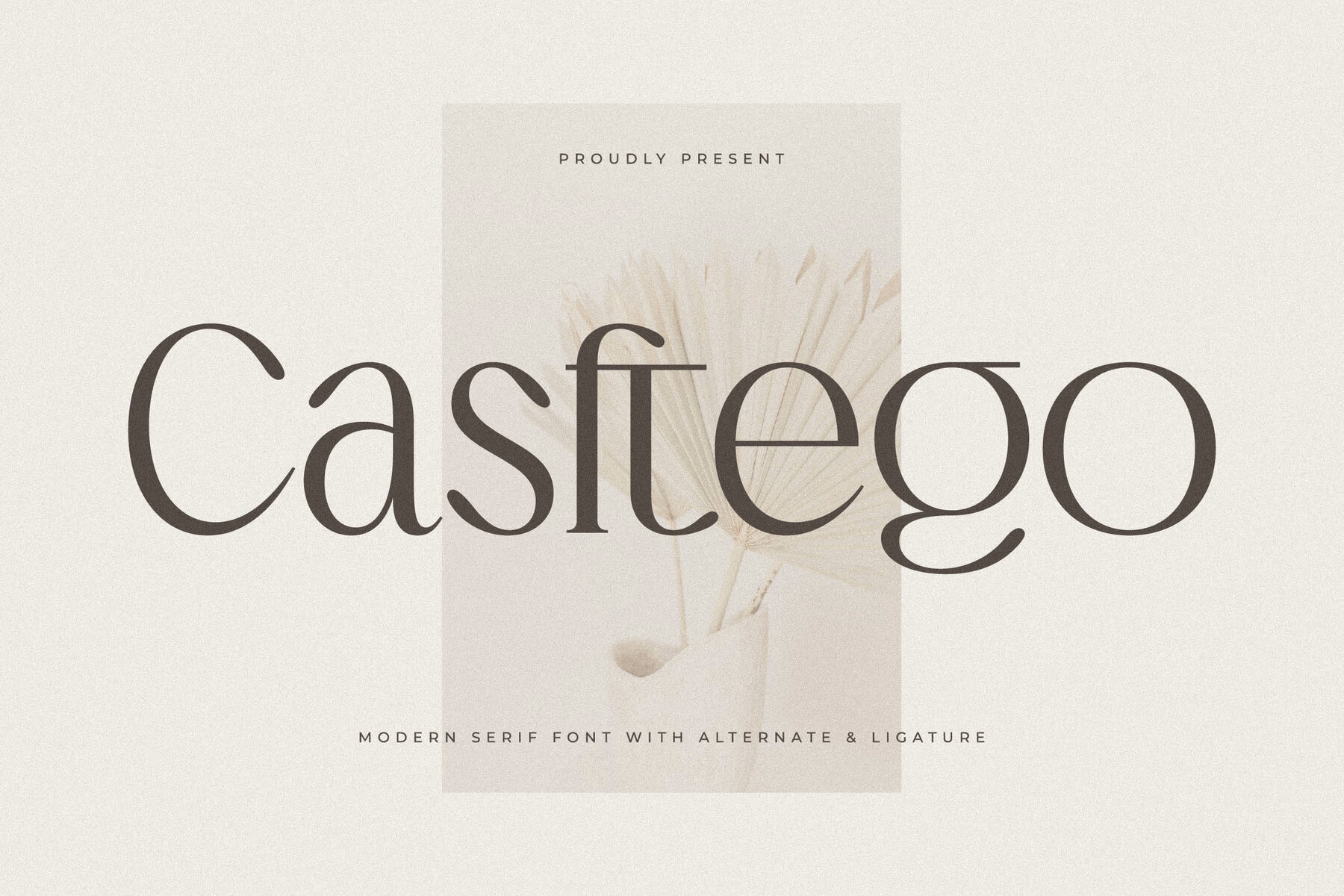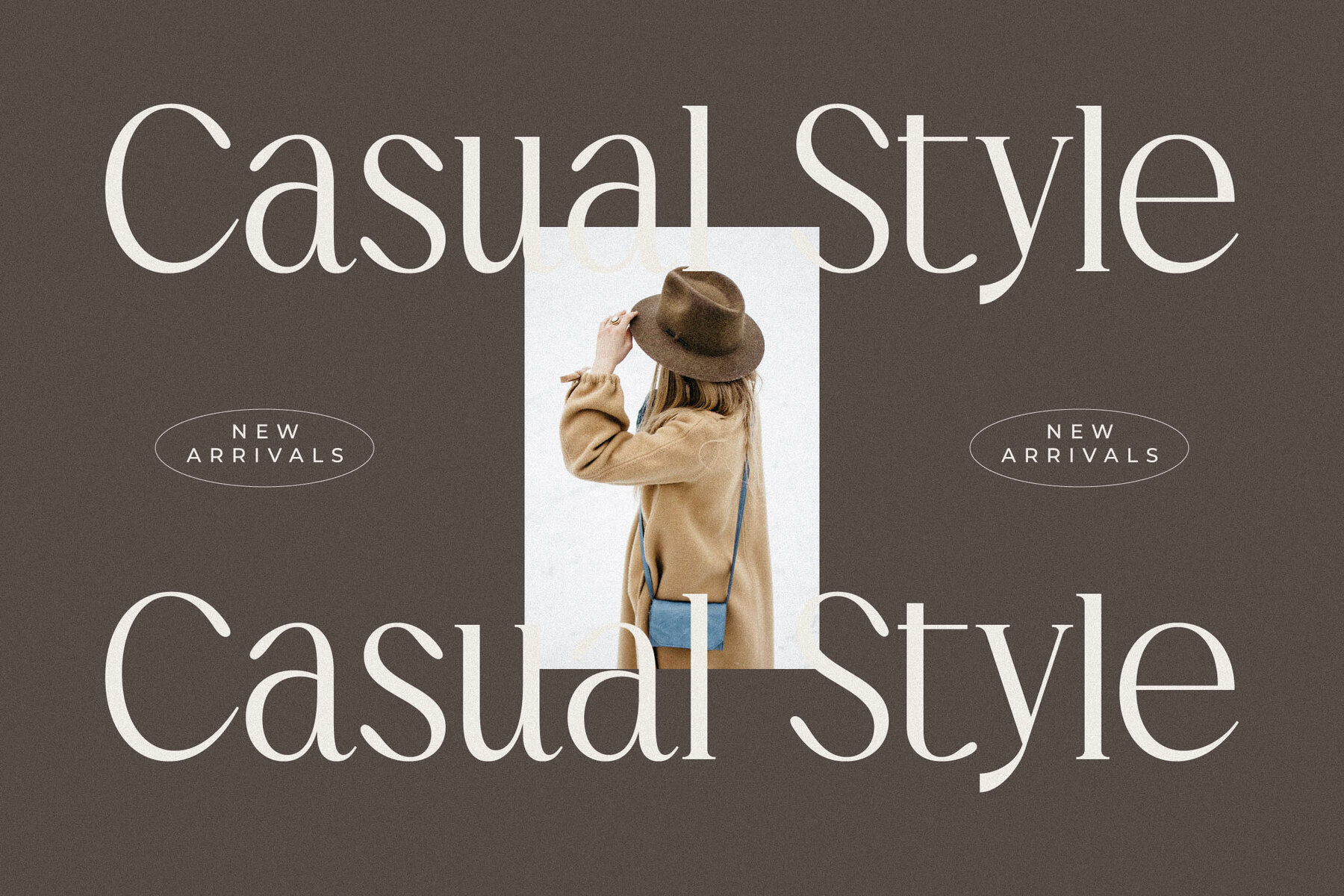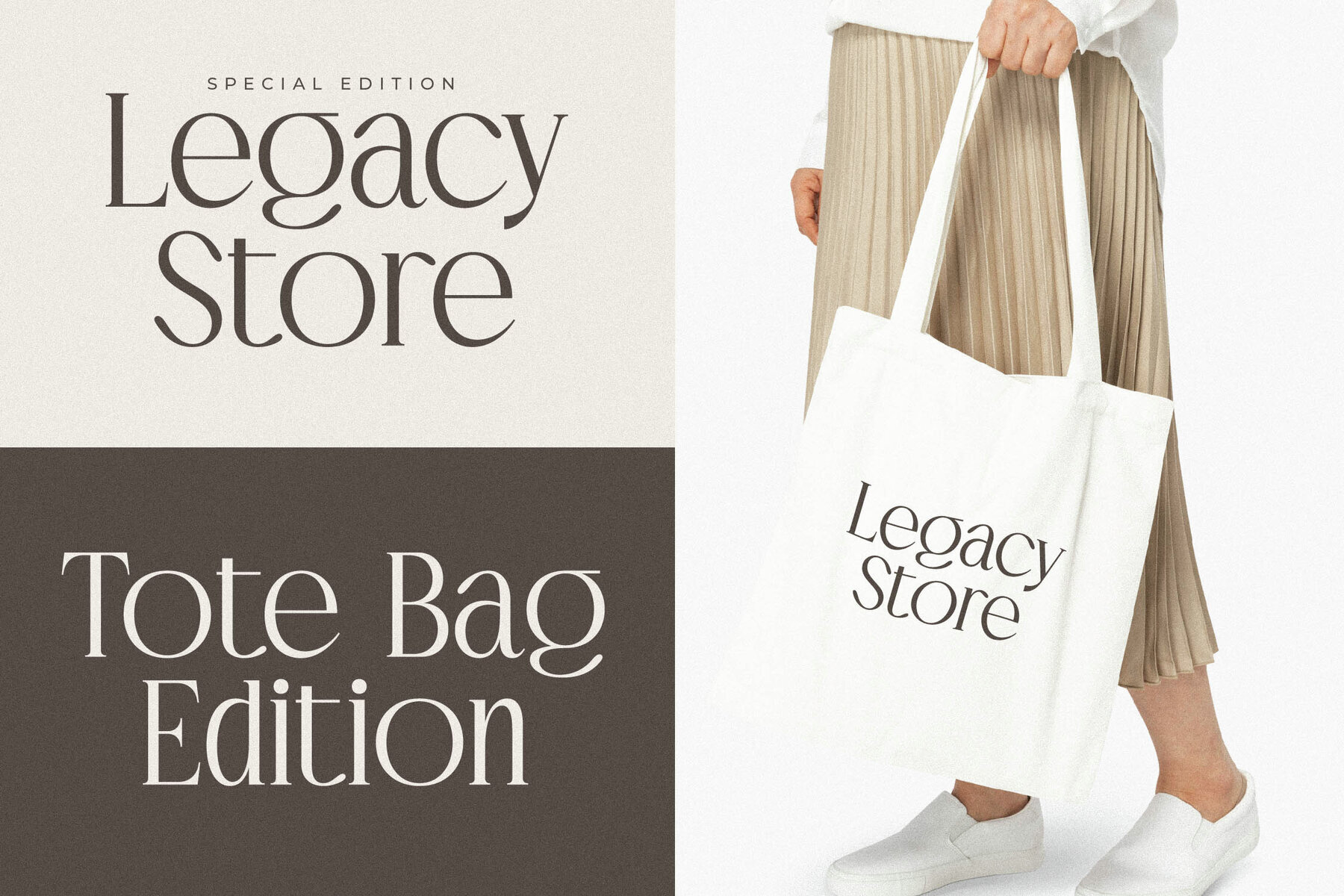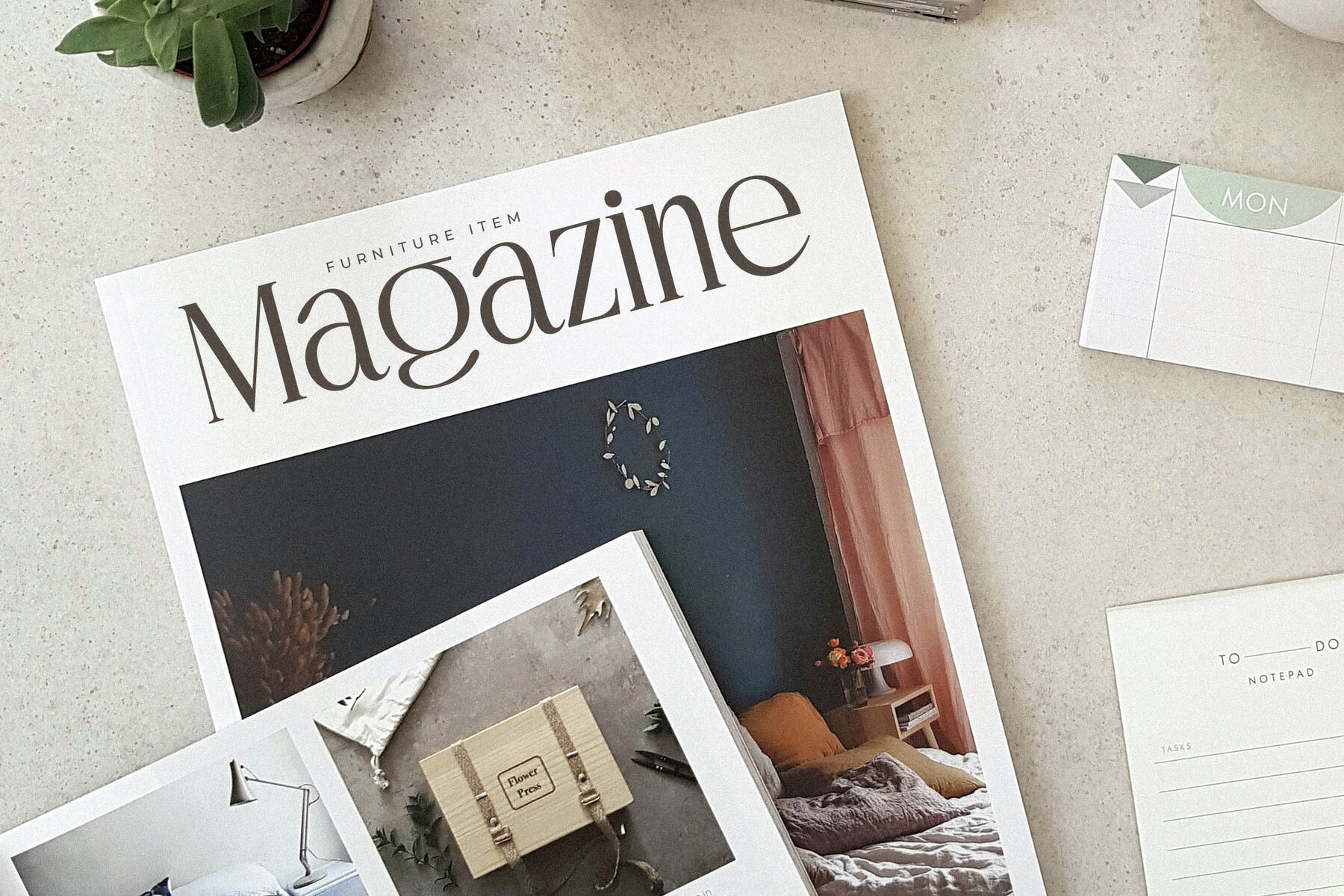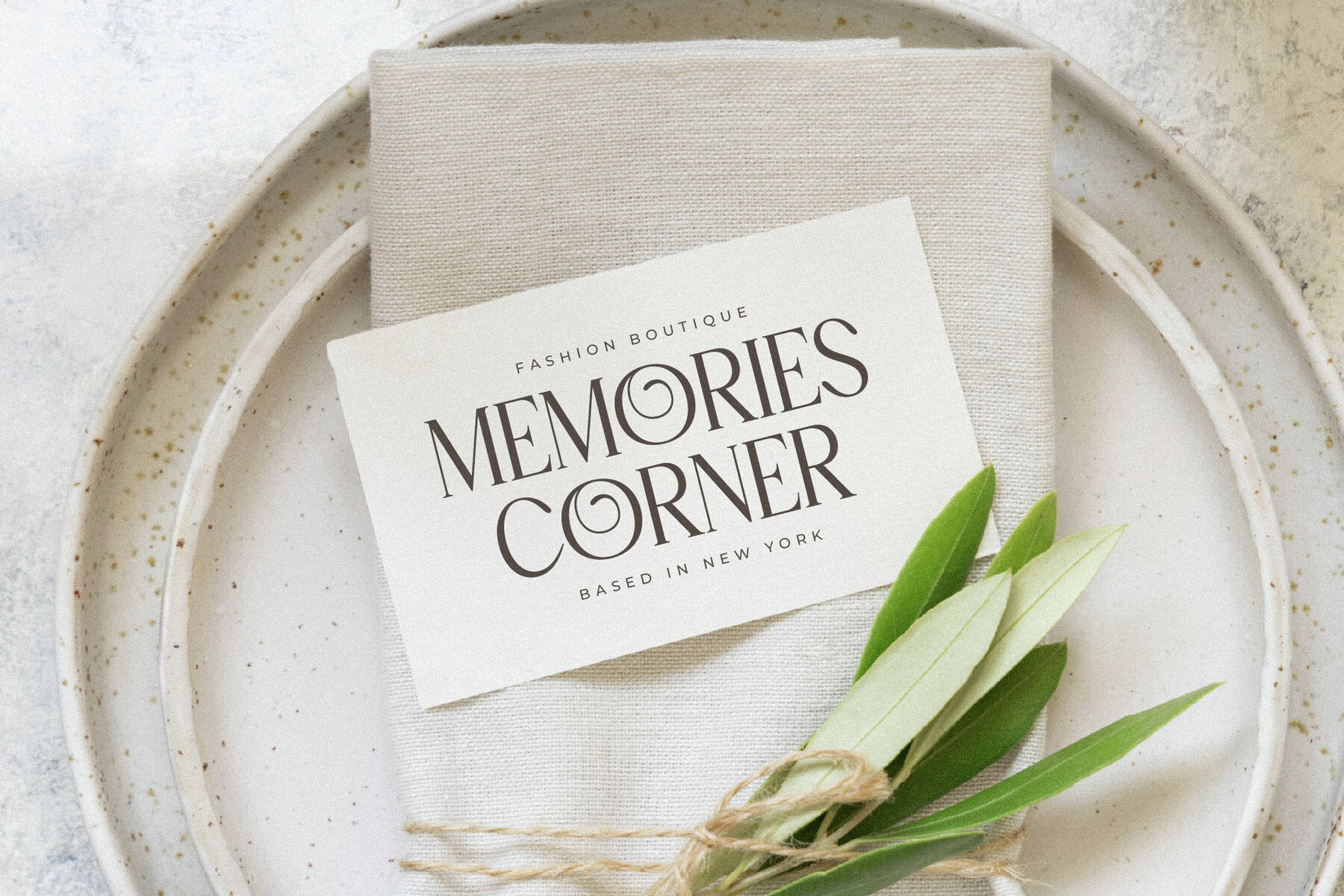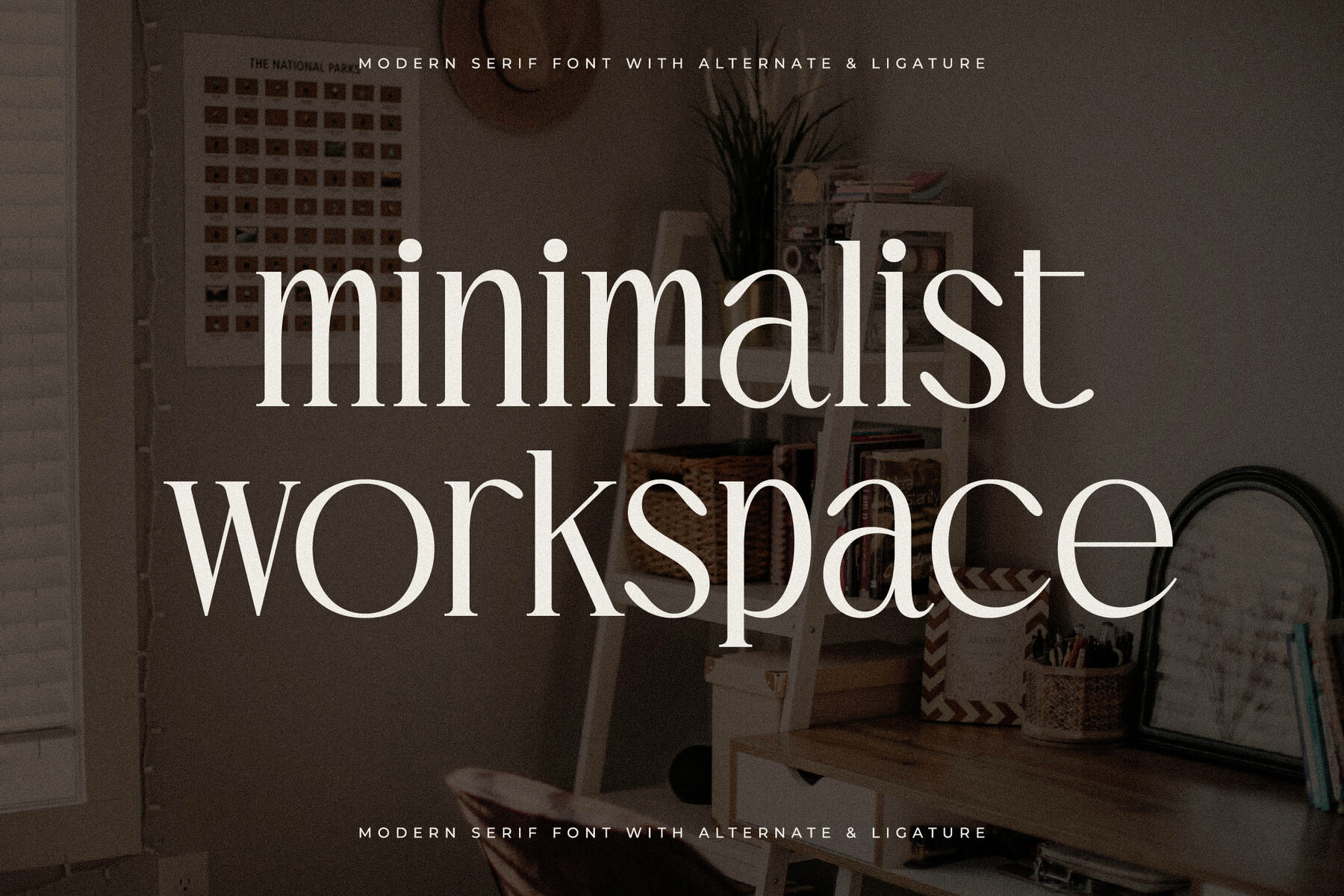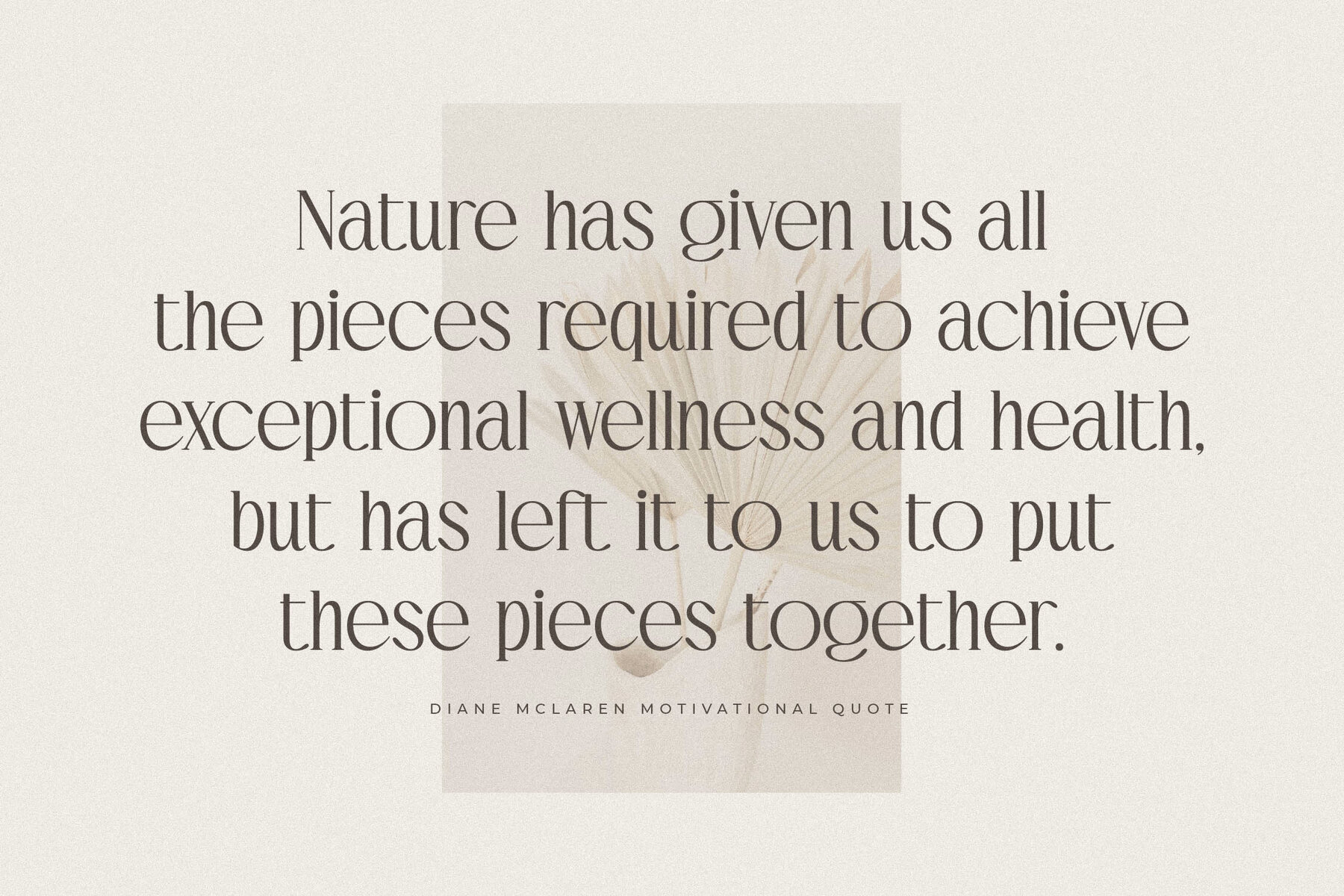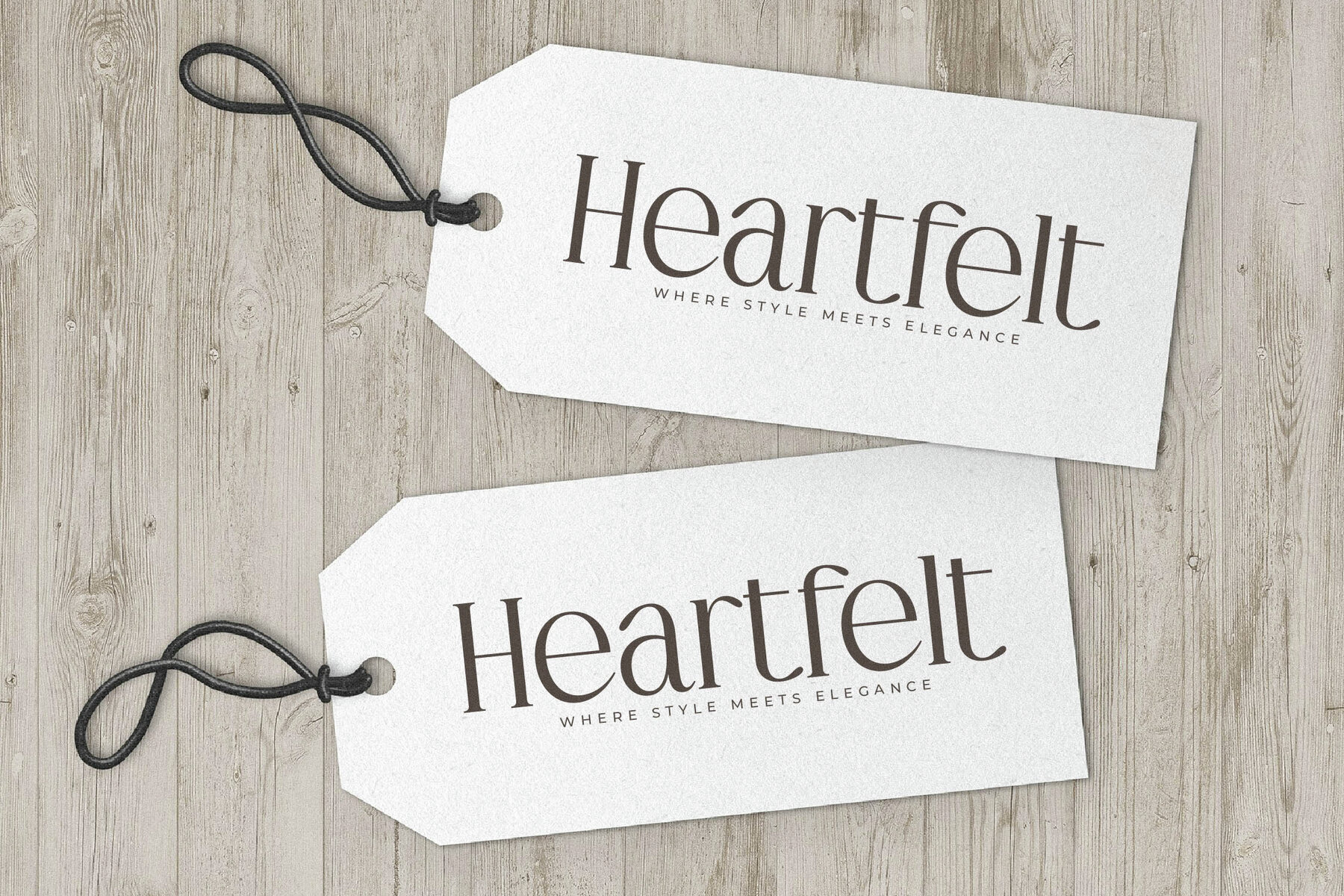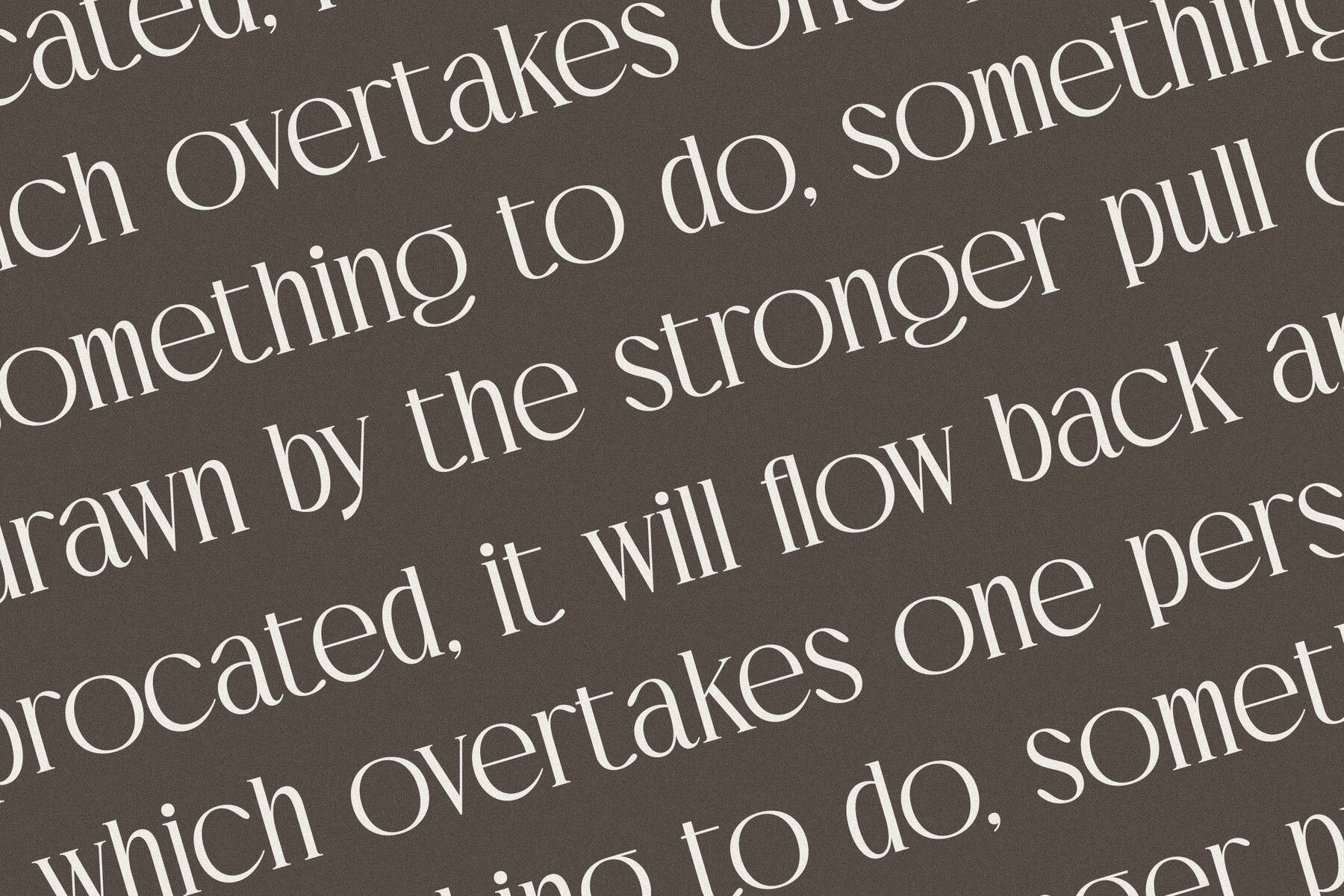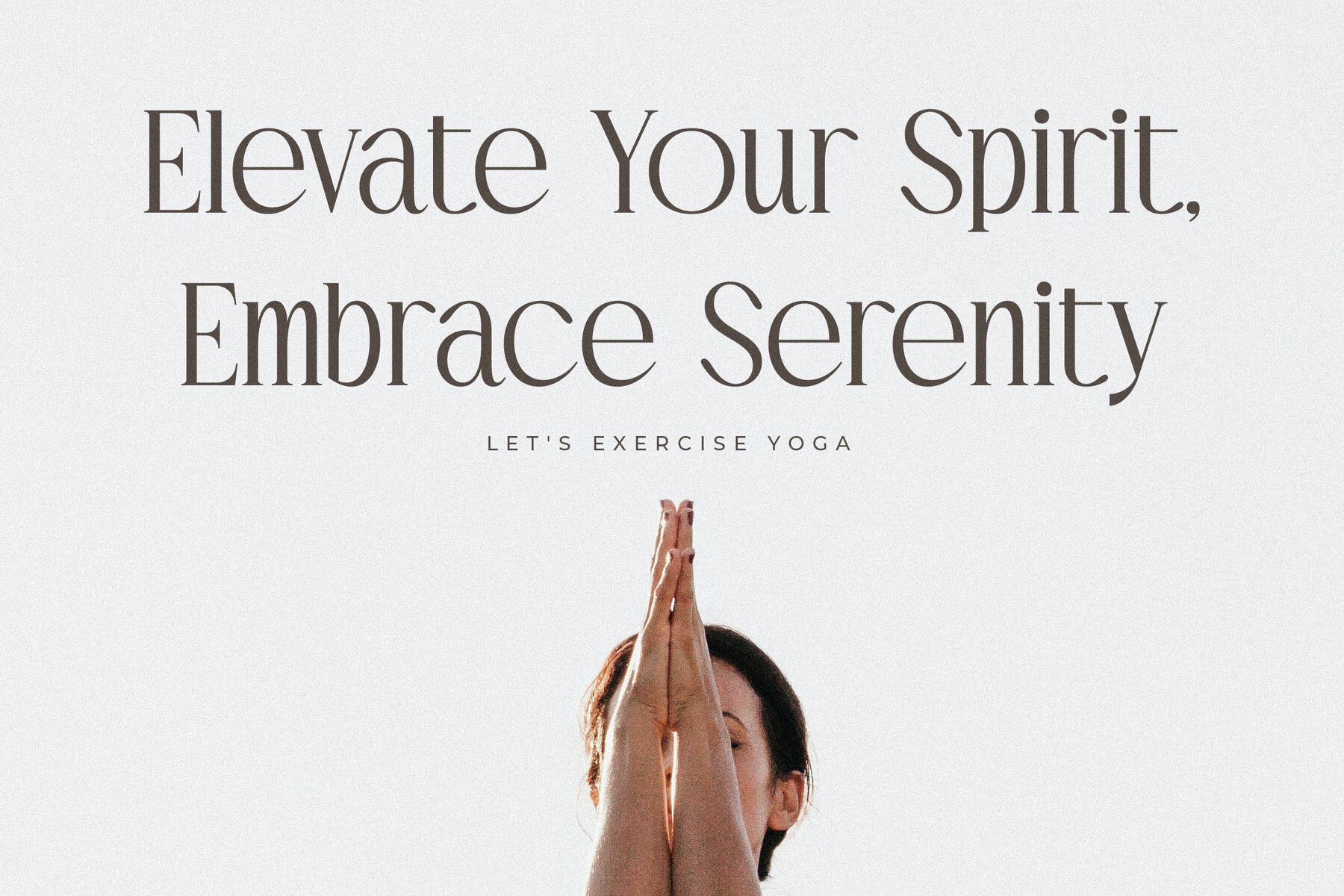
Casftego Font
Casftego Regular
Casftego Italic
Discover the elegance and sophistication of the Casftego typeface, a unique creation from Storytype Studio. This serif font masterfully combines modern elements with classic grace, making it an exceptional choice for a variety of design projects. Whether you're crafting a luxury logo, a book or movie title, or branding a fashion line, Casftego provides both style and versatility.Casftego Typeface